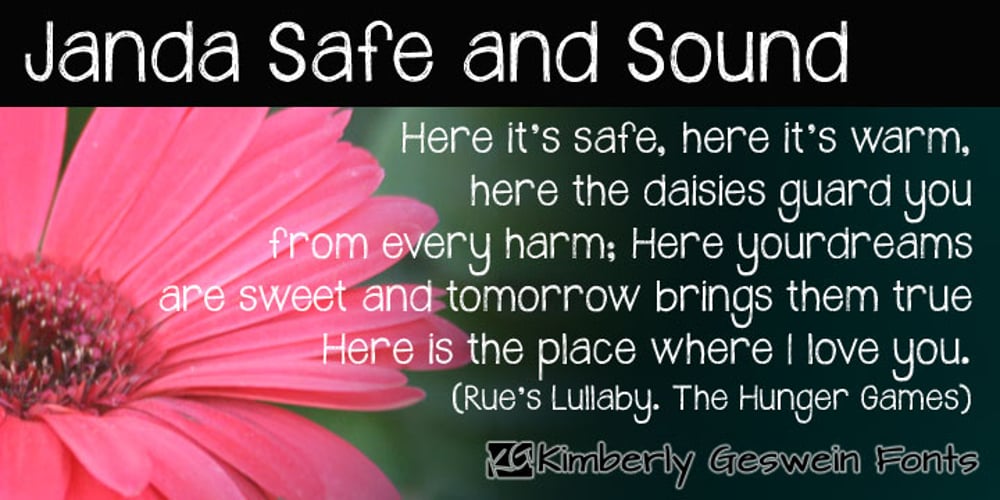
Janda Safe And Sound
Janda Safe And Sound font
Janda Safe And Sound Font Family was designed by Kimberly Geswein and published by Kimberly Geswein. Janda Safe And Sound contains 2 styles and family package options. Imperfectly hand-sketched sans serif.